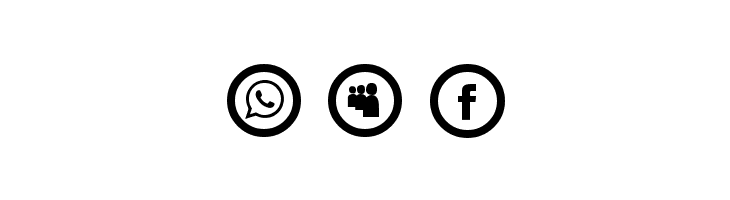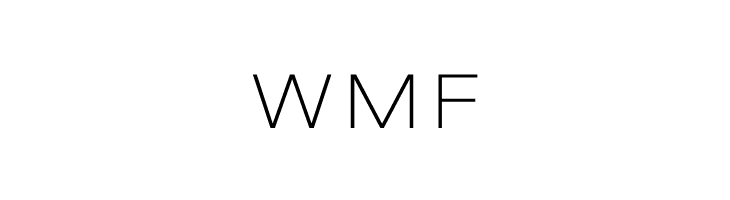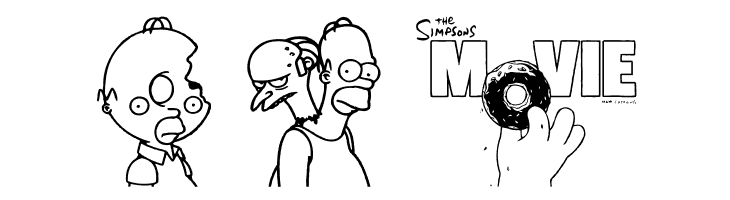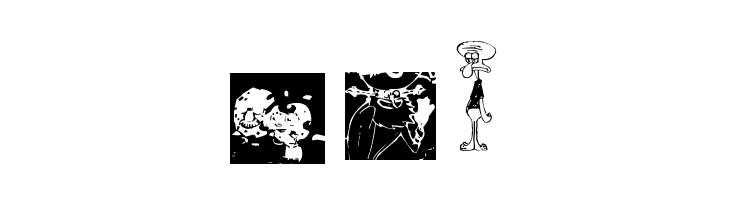
A playful font with letters integrated into a classic van design, offering a nostalgic and decorative style.
Decorative icon set featuring popular web and social media logos within star-dotted circles.
Bold, badge-style icons featuring major brand and social media logos.
A bold, decorative font combining letters with software and tech logos.
A playful, hand-drawn icon set featuring social media and web symbols.
A clean, modern sans-serif font with excellent readability and uniform stroke widths.
A modern monospaced font designed for coding with clear, distinct characters.
A clean, modern monospaced font ideal for coding and technical documentation.
A decorative font with sci-fi inspired symbols and motifs.
Icon-based font with social media and communication symbols.
Bold, circular sawtooth badges containing simplified brand and social media icons.
Monochrome social media and tech icons in black circular buttons.
A clean, modern sans-serif font with excellent legibility and neutral appearance.
Whimsical, illustrated character font with a sci-fi theme.
A bold, modern sans-serif font with tall, narrow letters.
A meme-inspired decorative font made from rage comic faces.
A bold, retro-inspired font with rounded, bubbly characters.
A bold, retro font with rounded, bubbly letterforms and a playful, groovy style.
A bold, playful font with thick, rounded characters and a nostalgic 90s vibe.
Cartoonish, expressive decorative font with character illustrations.